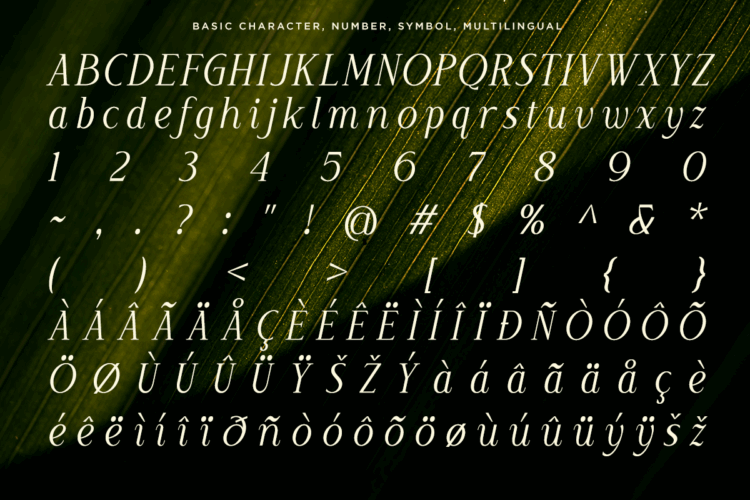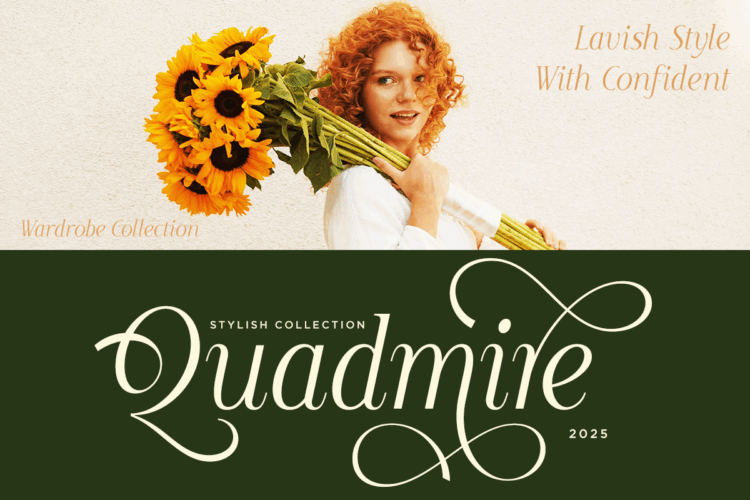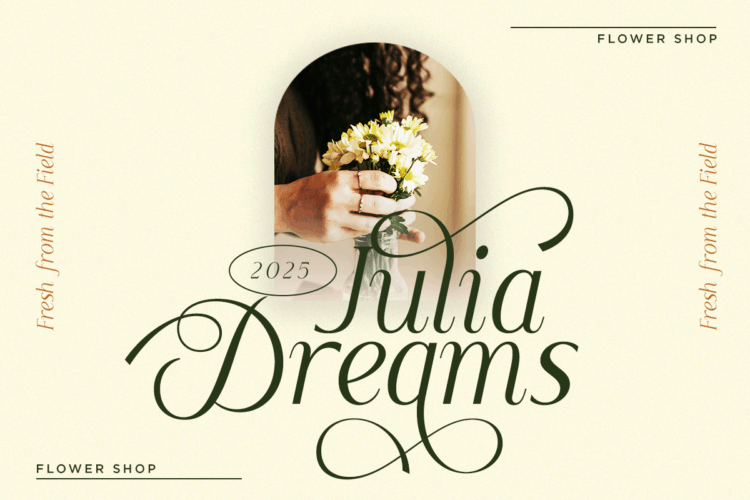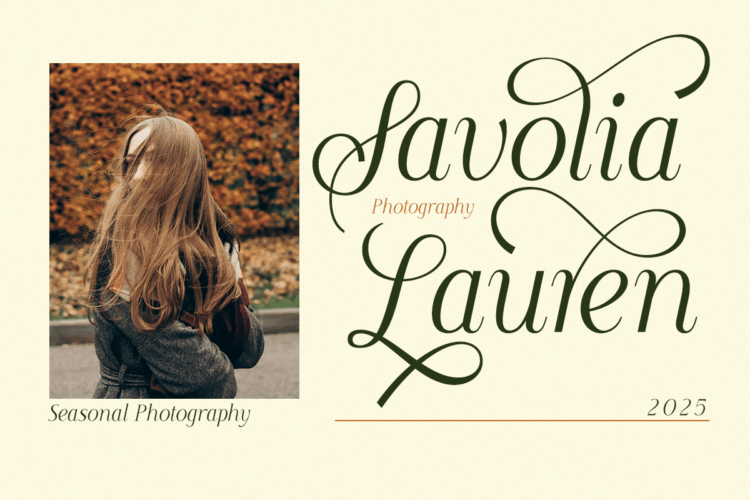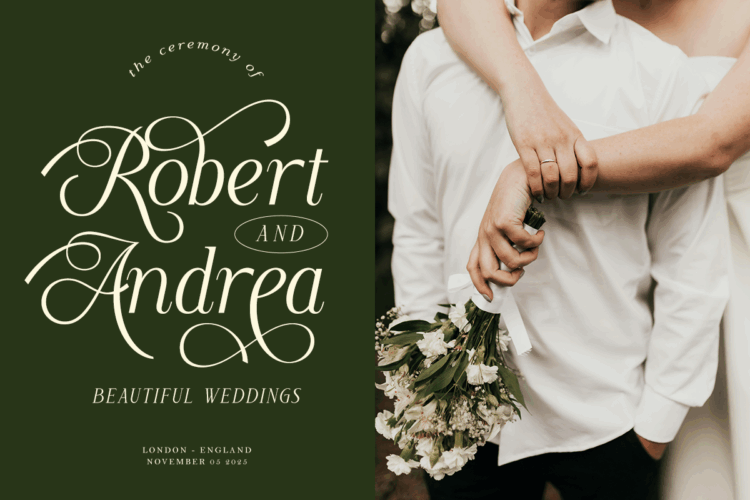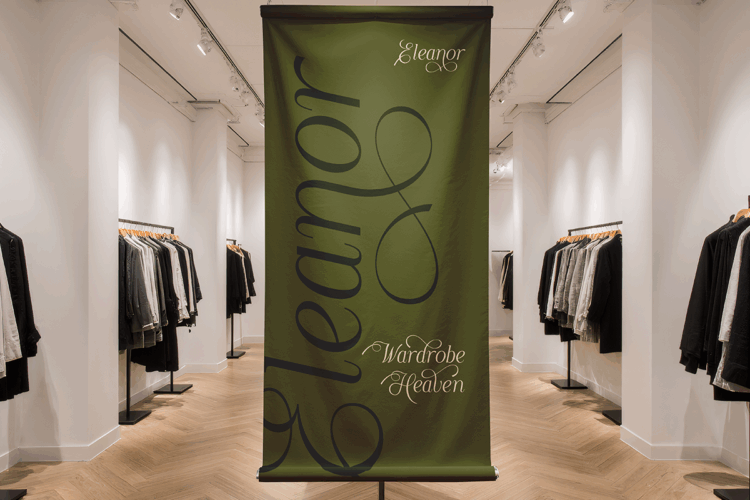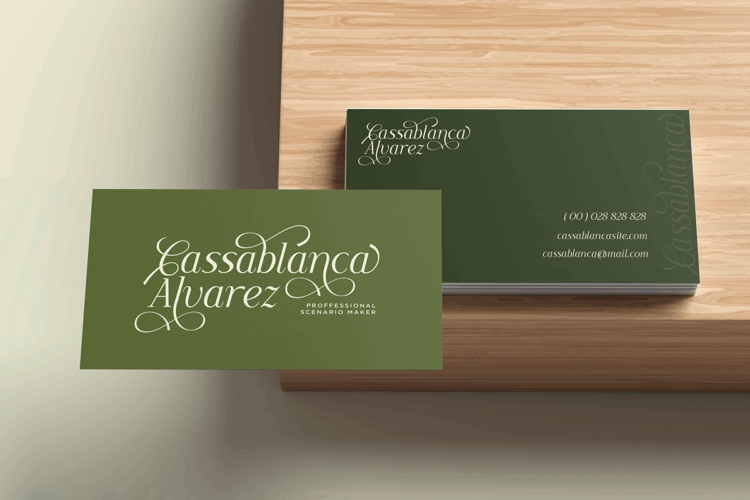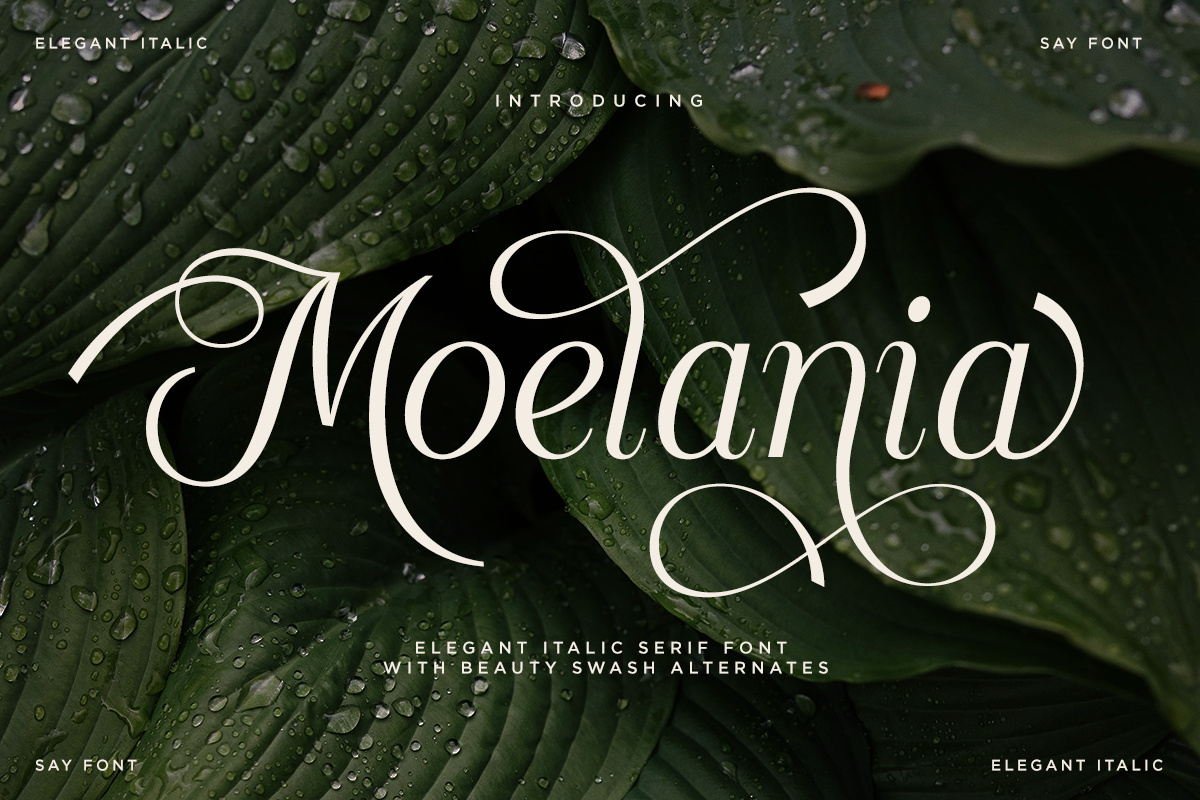
Moelania – Beauty Italic Serif Font
Moelania is a luxurious and elegant italic font featuring stylish alternates. It’s perfect for branding, logos, quotes, and posters, and also ideal for wedding invitations. This font allows you to create stunning and sophisticated designs. Moelania also supports multiple languages.
– Alternates Uppercase
– Alternates Lowercase
– Number, and Symbol